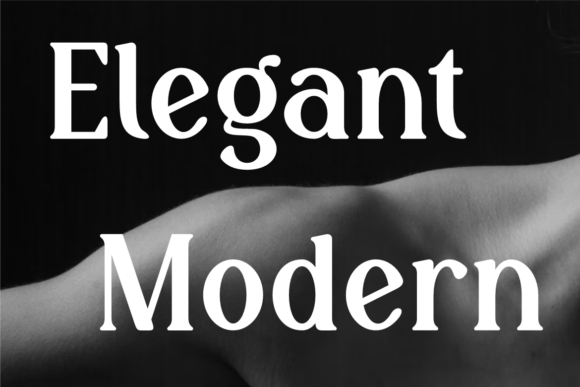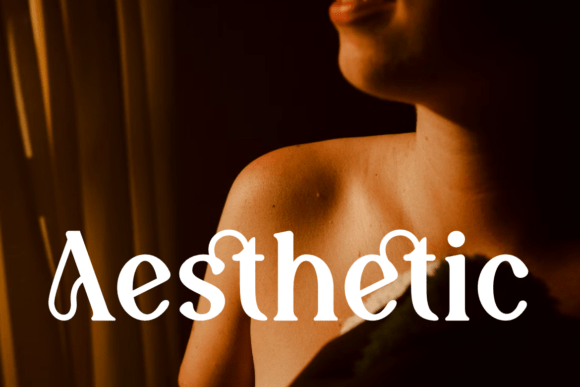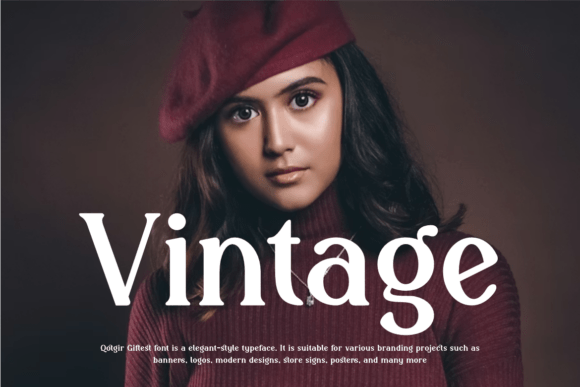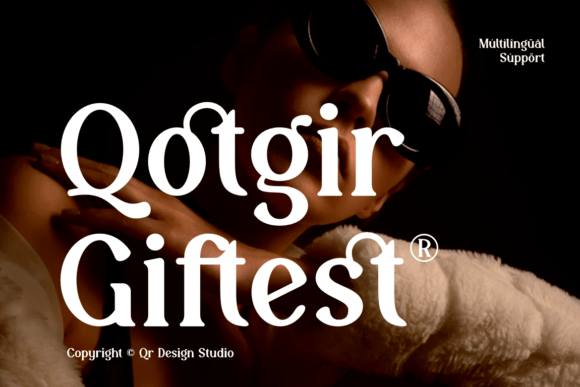
Introduction to Qotgir Giftest Font
Command the runway of visual design with Qotgir Giftest, a high-fashion display serif.
This typeface is a masterclass in modern editorial elegance, featuring a rhythmic interplay between bold, authoritative stems and graceful, organic curves Qotgir Giftest is an extraordinary choice for luxury fashion branding, avant-garde magazine covers, boutique cosmetic labels, and cinematic lifestyle headers.
Key Features of Qotgir Giftest Font
Why Choose Qotgir Giftest Font?
Qotgir Giftest Font offers exceptional quality and versatility, making it a valuable addition to your design toolkit. Whether you’re creating for personal projects or commercial use, Qotgir Giftest Font delivers professional results.